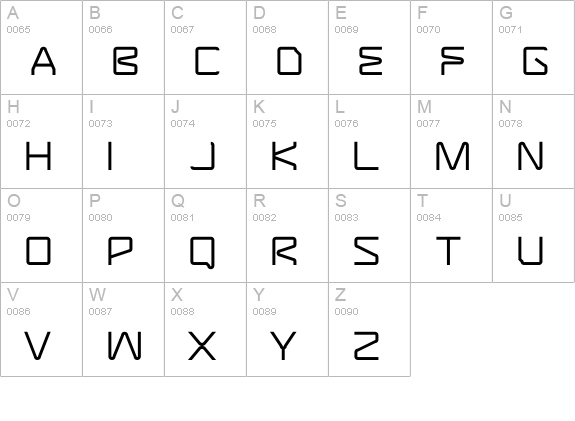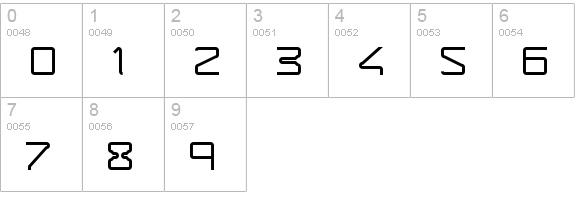
AssemblerRegular Font Details
AssemblerRegular font is a sleek and modern typeface that combines elements of traditional typography with a contemporary twist. Its clean lines and sharp angles give it a futuristic look, perfect for use in tech-related projects or cutting-edge designs. The versatility of AssemblerRegular font makes it suitable for a wide range of applications, from branding to editorial design. What's more, AssemblerRegular font is available for free download at FontsMarket.com. This means you can add this stylish and professional font to your collection without any cost, making it a valuable resource for your creative projects. Whether you're a designer looking for a new font to elevate your work or a hobbyist wanting to experiment with different typography styles, AssemblerRegular font is a fantastic choice that won't break the bank. Download it today and see how it can enhance your designs!